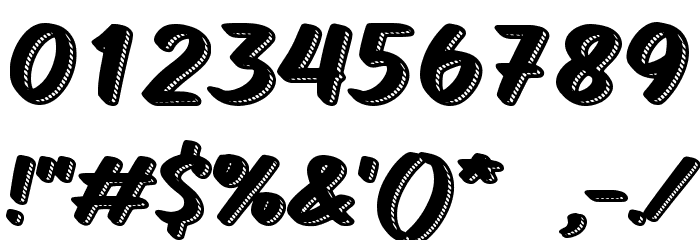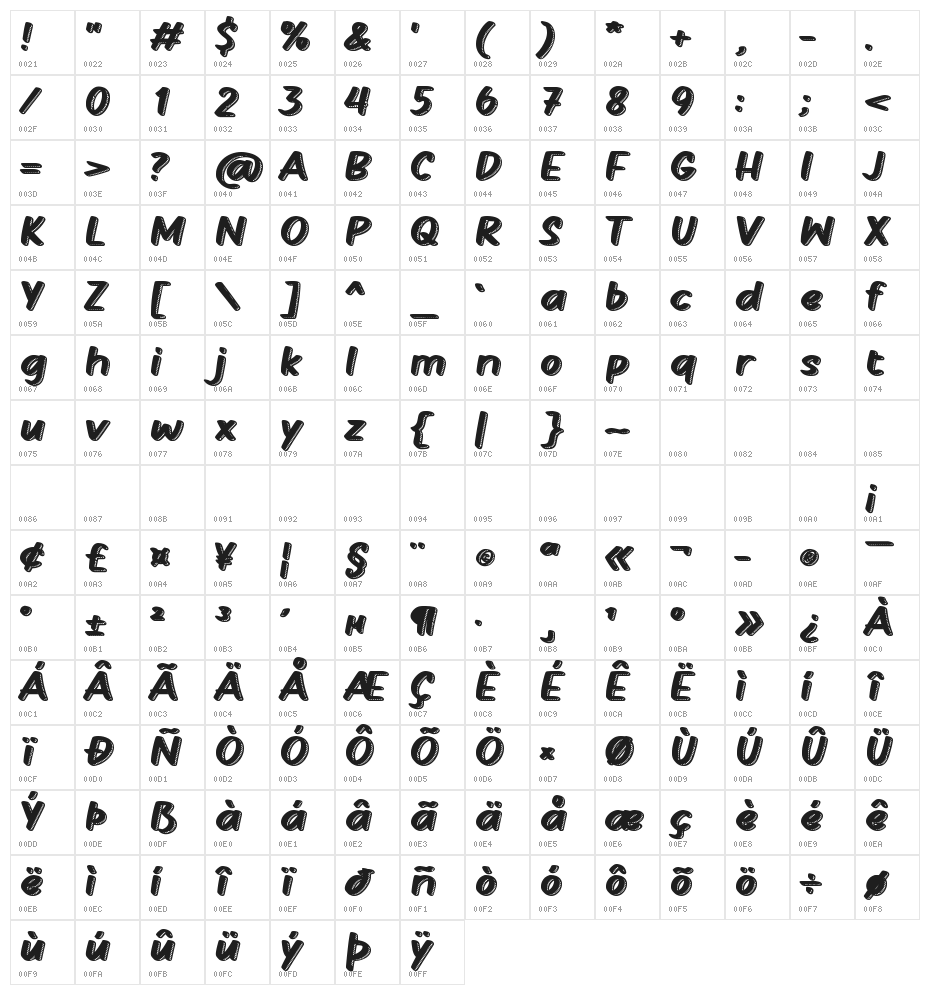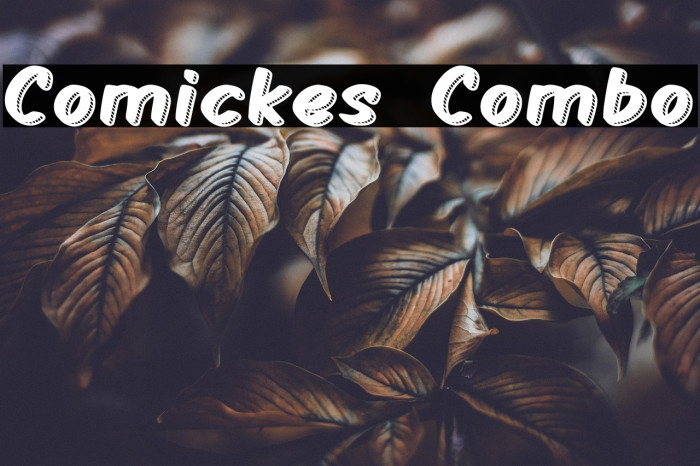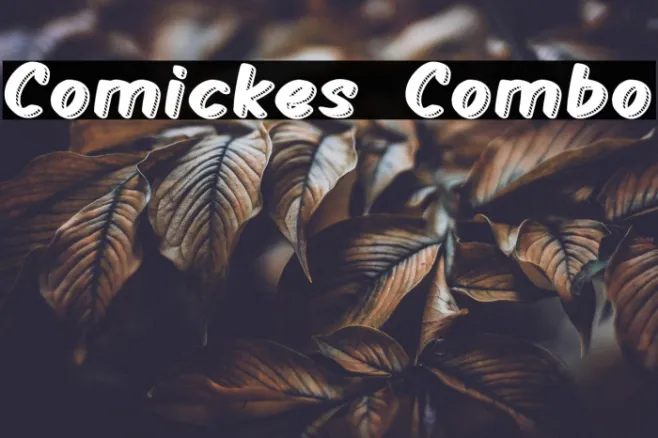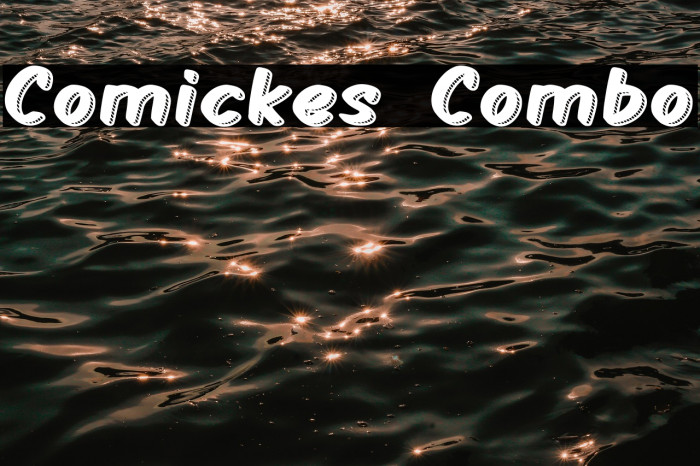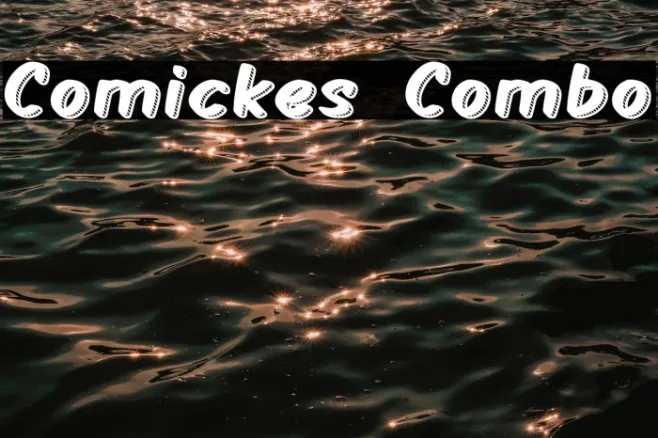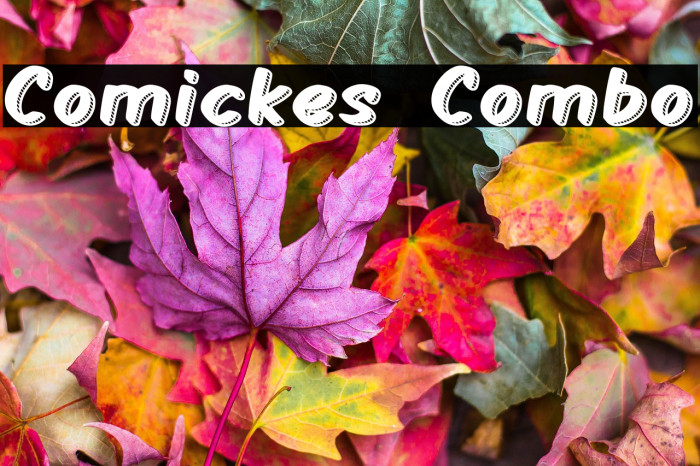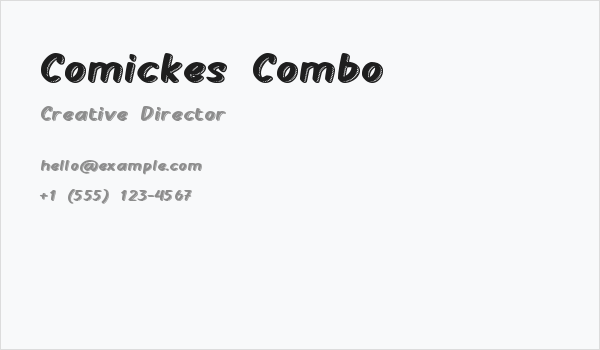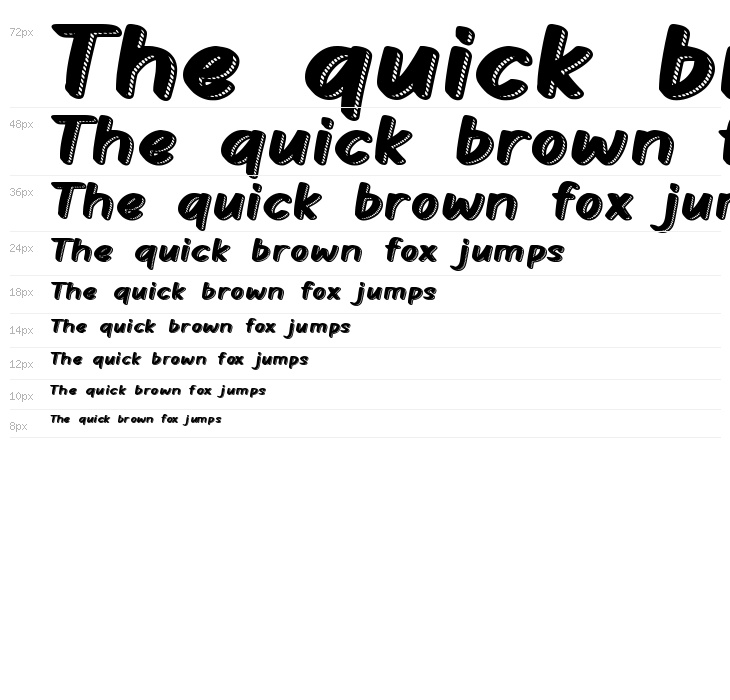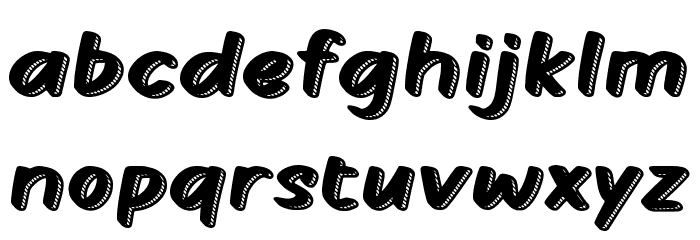
Comickes Combo Font
Comickes Combo Description
This playful and bold font features a comic-inspired style with a unique dotted texture inside each character. The letters are rounded and slightly slanted, giving a dynamic and energetic feel. The uppercase and lowercase letters maintain a consistent style, with the lowercase being slightly smaller and more compact. Numbers and special characters follow the same playful design, making the font versatile for various uses. The boldness of the font ensures high visibility, while the dotted texture adds a layer of visual interest, making it suitable for creative and informal projects.
| Overall Style | Playful, Comic |
| Proposed Projects | Ideal for comic books, children's books, playful branding, posters, and creative advertisements. |